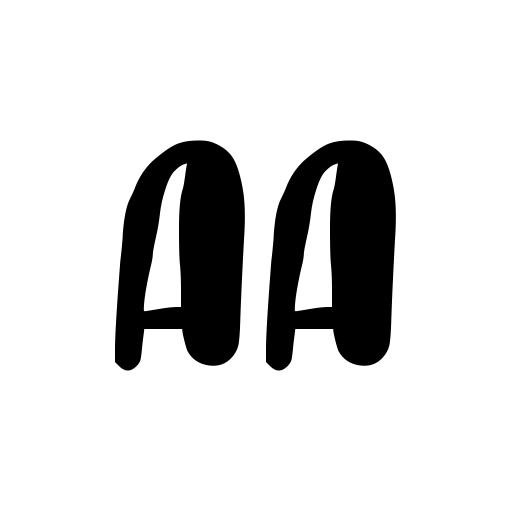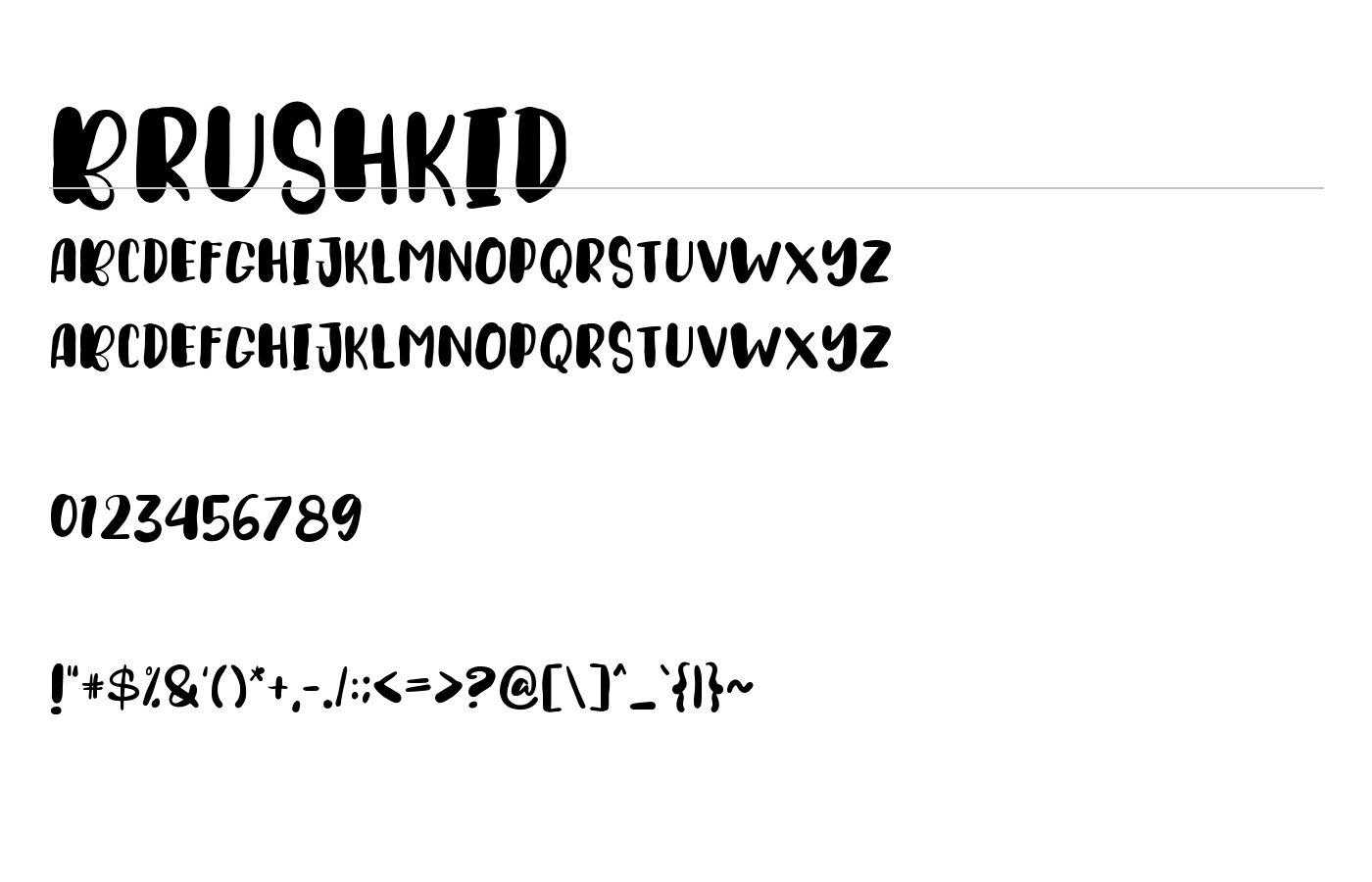
BRUSHKID is a playful and casual brush script font with a lively, hand-painted feel. Its bold strokes and rounded edges create an inviting, friendly look, perfect for creative projects, children’s branding, or informal headlines. This font works well when you want to add a touch of energy and personality to logos, posters, or packaging that benefit from a fun, approachable style.
BRUSHKID Font
About BRUSHKID Font